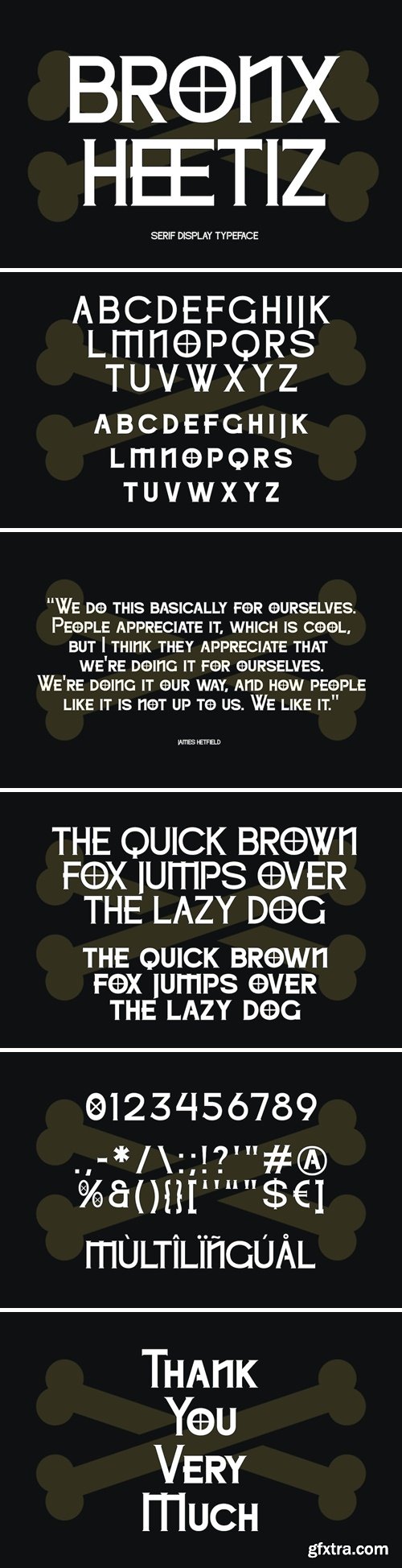
Bronxheetiz Font
Bronxheetiz is a serif with solid font files. it is based on the compact solid font, by combining a variety of styles. Suitable for Music, Band, Logo, greeting cards, quotes, posters, branding, name card, stationary, design title, blog header, art quote, typography, etc.